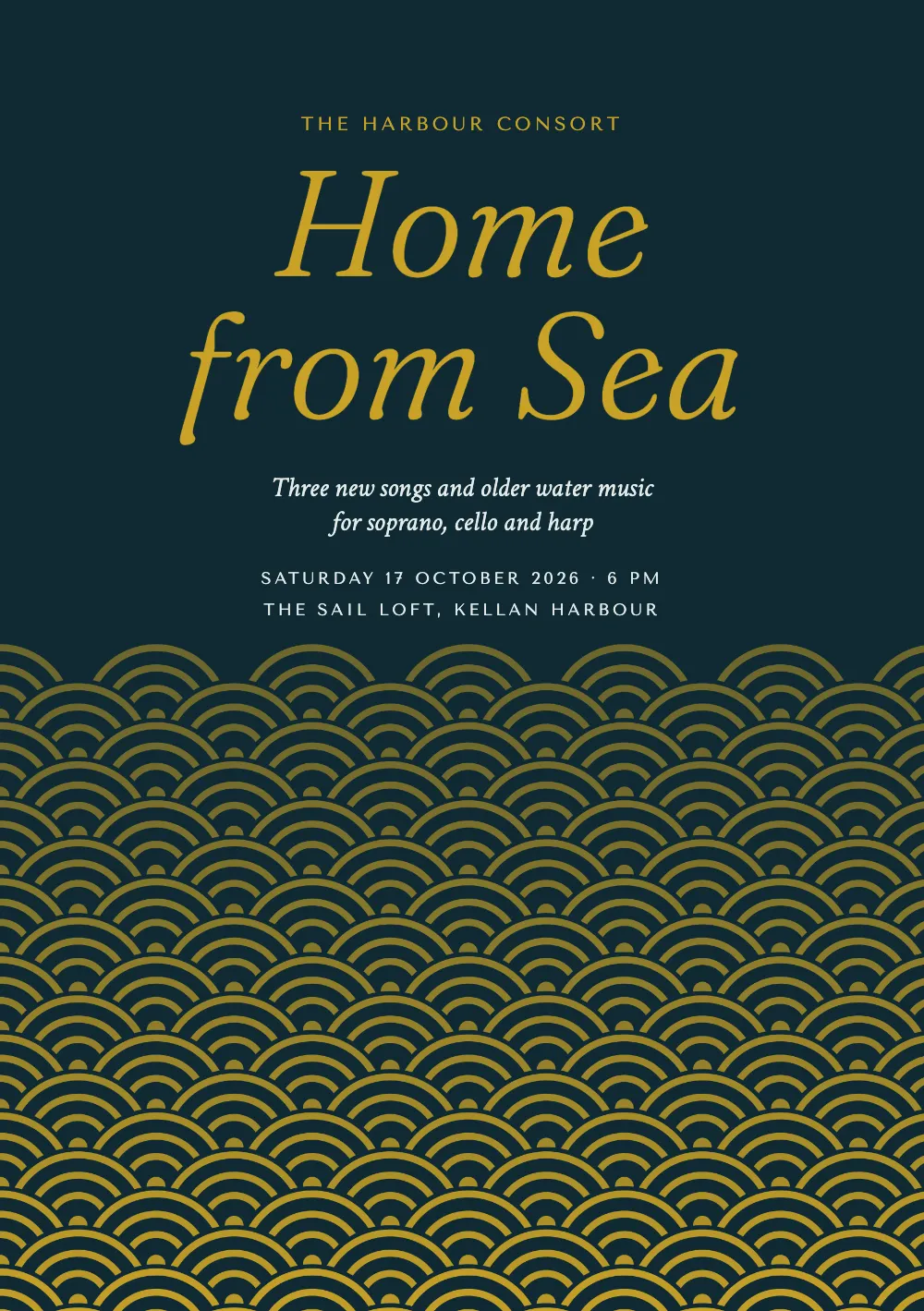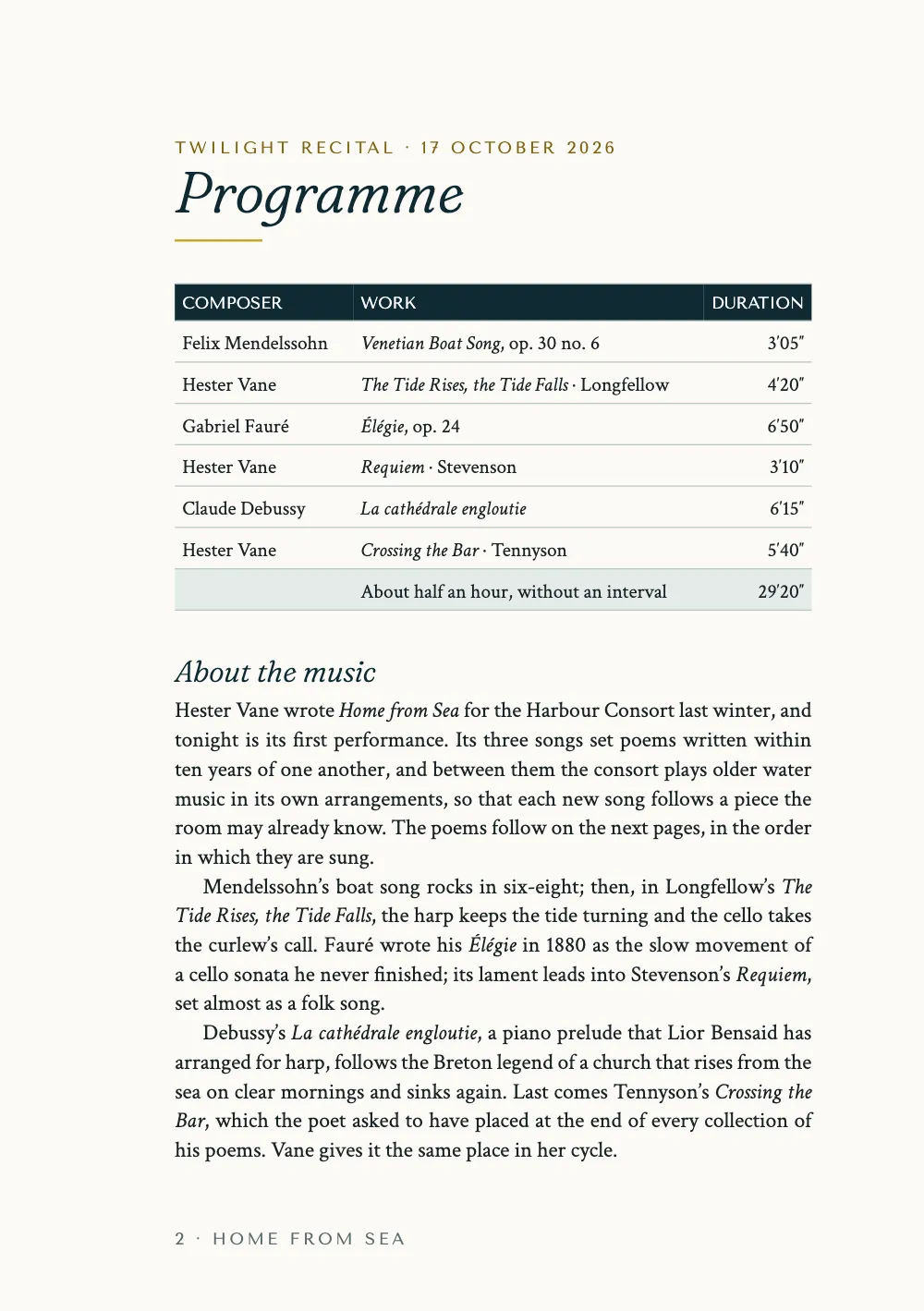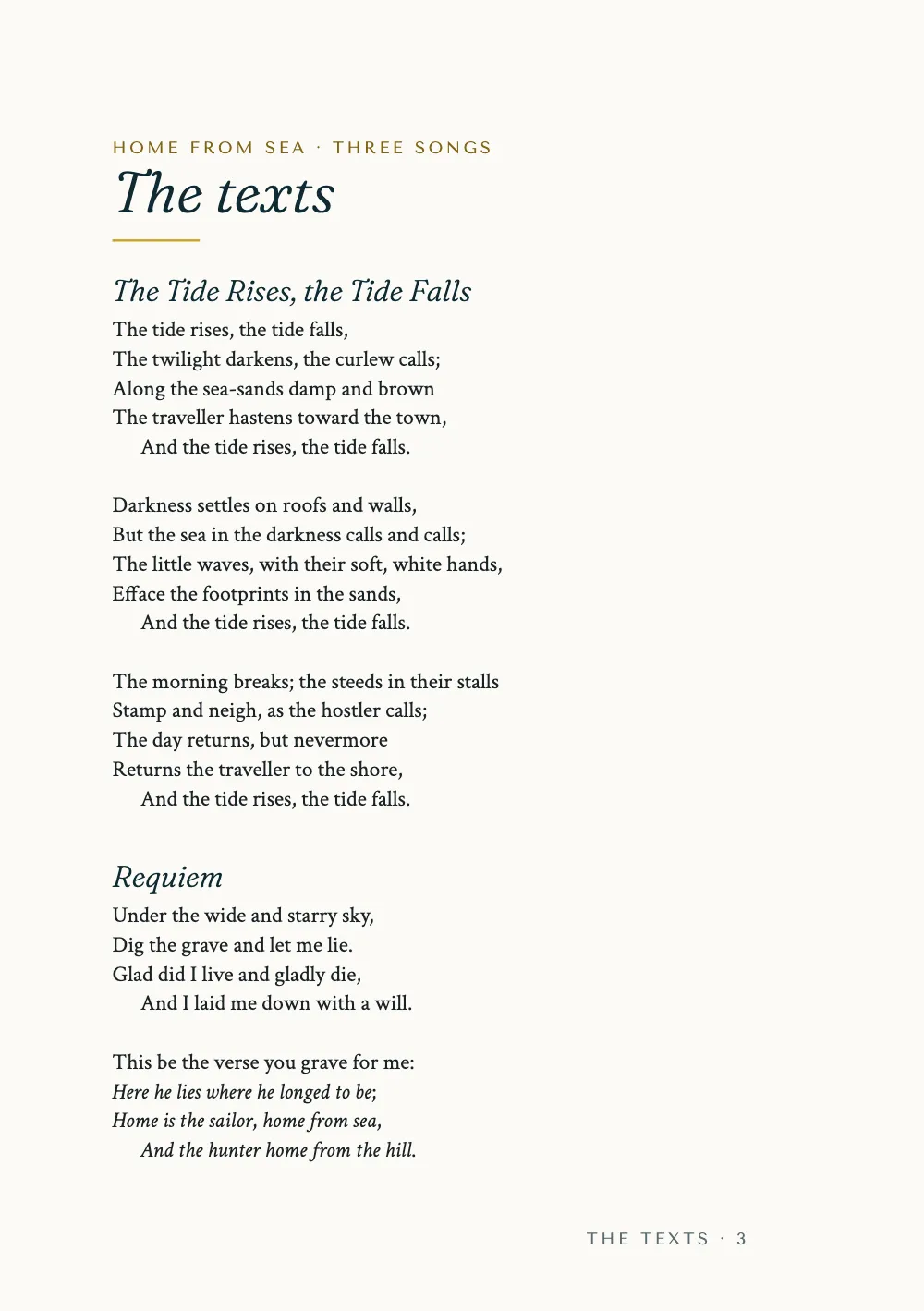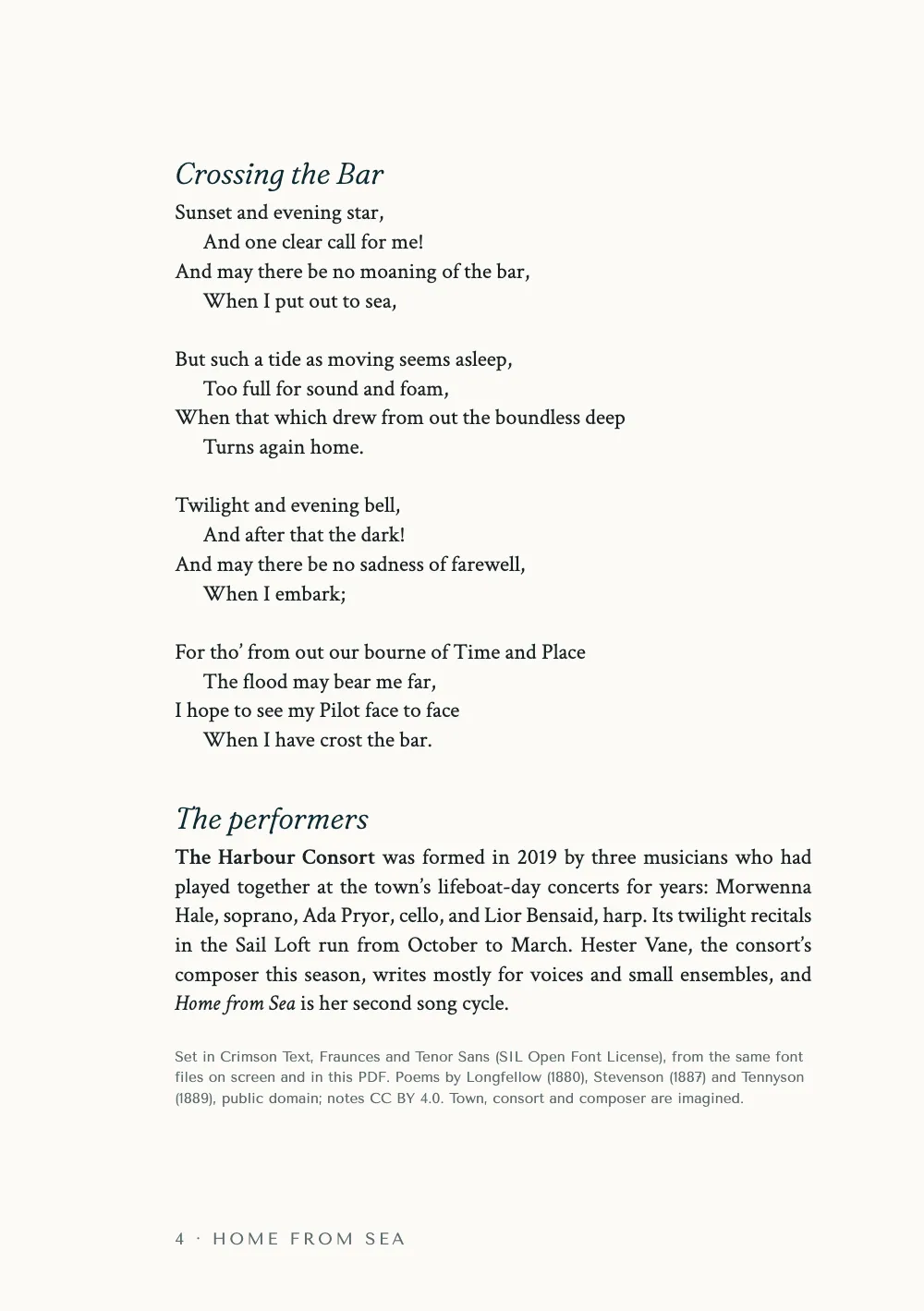
What you'll build
The programme for a twilight recital, Home from Sea: four A5 pages for a consort of soprano, cello and harp. The cover is night teal, with the title in gilt Fraunces italic and rows of gilt wave scales rising from the foot. Inside, the order of performance is a table with a teal head in Tenor Sans capitals and a tinted total row. The notes are justified Crimson Text. The words of the three songs are poems by Longfellow, Stevenson and Tennyson, set with the indents of their printed editions. The Build the PDF button makes the file you would email to the audience or put on the venue's website. Its four pages match the screen line for line. It embeds only the seven font files the browser loaded, and each heading is a bookmark. For commercial printing, see the print-ready PDF.
The short answer
One download per face: the layout measures it, the PDF embeds it
#1 · One download per face, for the page and for the PDF
The code is the short answer above. Postext measures every word with the faces the browser has loaded when the build runs, and the PDF draws each line where that layout put it. If the PDF embeds a different file, such as a variable font's default instance or a system fallback, each word still starts at its measured position, but its letters have other widths, so words overlap or leave gaps. The recipe therefore fetches each face once. Its bytes become a FontFace before the first build, and the font provider passes the same bytes through decompressWoff2 for the PDF, so the export downloads no fonts of its own.
#2 · Fonts first, then the layout
registerFaces() resolves only when every face in FONTS has loaded, so the first build measures with the faces the PDF will embed. It is also the only build, because FONTS lists every bold and italic a block of Crimson Text or Fraunces can ask for, and the kit's buildWithFonts finds nothing to add (Measurement cache). That check only helps the screen. If FONTS misses a face, buildWithFonts loads it and runs the layout again, with a console warning when a block is set in that face and none when it is a bold or an italic, but the PDF still gets the closest face the provider has.